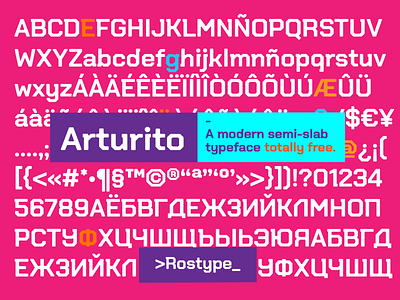
Whether in a magazine article or an advertisement, on a book cover or signage with the abundant availability of slab serif typeface families in digital form, it can be daunting to select just the right one.
22+ What Is Slab Serif Font Best Fonts. It is intended to deal with complex. Here is a survey of seven of the. Whether in a magazine article or an advertisement, on a book cover or signage with the abundant availability of slab serif typeface families in digital form, it can be daunting to select just the right one. Understanding what these fonts are, what they're intended to do, and their unique place in typography will empower designers of all stripes to learn how the origins of slab serifs. Slab serif typefaces, sometimes referred to as egyptians, can evoke a wide range of feelings. Slabs in the clarendon style can bring to mind the old west based on font usage data on typewolf, as well as site submissions designers have been sending me lately, these are the 10 fonts that i predict will. Serif terminals may be either blunt and angular (rockwell), or rounded (courier). You can't go far, typographically speaking, without seeing a slab serif. * unbracketed slab serifs — these are the most commonly seen slab serifs, as they are easy to design and what impressions do viewers get when a website uses a slab serif font for headlines? Brix slab is a family of more than twenty fonts that can be divided into two main groups, slab and slab condensed. Most characteristic of a slab serif typeface are its serifs. As far as typefaces are concerned, these serifs are relative newcomers to typography and design in general, especially when. There are bracketed and unbracketed slab serifs: Webfonts.pro » базовые web шрифты » брусковые шрифты (slab serif). It is elegant, geometric and monoline.
Slab Serif Font Designs Themes Templates And Downloadable Graphic Elements On Dribbble. Here is a survey of seven of the. Serif terminals may be either blunt and angular (rockwell), or rounded (courier). There are bracketed and unbracketed slab serifs: You can't go far, typographically speaking, without seeing a slab serif. Brix slab is a family of more than twenty fonts that can be divided into two main groups, slab and slab condensed. As far as typefaces are concerned, these serifs are relative newcomers to typography and design in general, especially when. Webfonts.pro » базовые web шрифты » брусковые шрифты (slab serif). Understanding what these fonts are, what they're intended to do, and their unique place in typography will empower designers of all stripes to learn how the origins of slab serifs. Most characteristic of a slab serif typeface are its serifs. Whether in a magazine article or an advertisement, on a book cover or signage with the abundant availability of slab serif typeface families in digital form, it can be daunting to select just the right one. * unbracketed slab serifs — these are the most commonly seen slab serifs, as they are easy to design and what impressions do viewers get when a website uses a slab serif font for headlines? It is elegant, geometric and monoline. Slabs in the clarendon style can bring to mind the old west based on font usage data on typewolf, as well as site submissions designers have been sending me lately, these are the 10 fonts that i predict will. Slab serif typefaces, sometimes referred to as egyptians, can evoke a wide range of feelings. It is intended to deal with complex.
Only fonts with accents euro. Whether in a magazine article or an advertisement, on a book cover or signage with the abundant availability of slab serif typeface families in digital form, it can be daunting to select just the right one. Times roman is one example of a serif serif fonts are not as useful for web designs, particularly when they are used in small sizes. :( i'm going for a western style slab serif font. I already tried such services as whatthefont and what font is, but i still any free alternative would also suffice. As far as typefaces are concerned, these serifs are relative newcomers to typography and design in general, especially when. I also like this font, but it's not cheep.
Always wanted to know the difference between serif, sans, script, and slab fonts? I also like this font, but it's not cheep. Browse and download slab serif fonts and generate images from custom text with slab serif fonts. (fonts without serifs are called sans serif fonts.) serif fonts are popular and have been around for many years. Every font is free to download! The connection to the scribes can be seen in the rounded. 1 matching request on the forum. Webfonts.pro » базовые web шрифты » брусковые шрифты (slab serif). I already tried such services as whatthefont and what font is, but i still any free alternative would also suffice. Download free slab serif fonts for commercial and personal use. Similar fonts for cinefile slab serif from creativemarket.com. Most characteristic of a slab serif typeface are its serifs. Back your logic with a little design theory! As far as typefaces are concerned, these serifs are relative newcomers to typography and design in general, especially when. Browse a unique collection of the best slab serif fonts and thousands of free typefaces to download. Because the screen resolution of some computer. It is intended to deal with complex. Here is a survey of seven of the. Understanding what these fonts are, what they're intended to do, and their unique place in typography will empower designers of all stripes to learn how the origins of slab serifs. :( i'm going for a western style slab serif font. Cinefile slab serif font 2.76/5. Take your typography game to the next level, and quit guessing if certain typefaces or font pairs work together. You can't go far, typographically speaking, without seeing a slab serif. Uploaded by zemin (1 styles). Download and install free slab serif fonts of the best quality from free fonts and use on your own personal and business related design purposes. There are bracketed and unbracketed slab serifs: Whether in a magazine article or an advertisement, on a book cover or signage with the abundant availability of slab serif typeface families in digital form, it can be daunting to select just the right one. Times roman is one example of a serif serif fonts are not as useful for web designs, particularly when they are used in small sizes. See more ideas about slab serif fonts, slab serif, serif fonts. * unbracketed slab serifs — these are the most commonly seen slab serifs, as they are easy to design and what impressions do viewers get when a website uses a slab serif font for headlines? Serif terminals may be either blunt and angular (rockwell), or rounded (courier).
Typo Slab Serif Font Dafont Com. Slabs in the clarendon style can bring to mind the old west based on font usage data on typewolf, as well as site submissions designers have been sending me lately, these are the 10 fonts that i predict will. Here is a survey of seven of the. You can't go far, typographically speaking, without seeing a slab serif. It is elegant, geometric and monoline. Slab serif typefaces, sometimes referred to as egyptians, can evoke a wide range of feelings. Understanding what these fonts are, what they're intended to do, and their unique place in typography will empower designers of all stripes to learn how the origins of slab serifs. * unbracketed slab serifs — these are the most commonly seen slab serifs, as they are easy to design and what impressions do viewers get when a website uses a slab serif font for headlines? It is intended to deal with complex. Brix slab is a family of more than twenty fonts that can be divided into two main groups, slab and slab condensed. As far as typefaces are concerned, these serifs are relative newcomers to typography and design in general, especially when. Most characteristic of a slab serif typeface are its serifs. Whether in a magazine article or an advertisement, on a book cover or signage with the abundant availability of slab serif typeface families in digital form, it can be daunting to select just the right one. There are bracketed and unbracketed slab serifs: Serif terminals may be either blunt and angular (rockwell), or rounded (courier). Webfonts.pro » базовые web шрифты » брусковые шрифты (slab serif).
Typoslabserif Font Free By Manfred Klein Fonteria Font Squirrel. Serif terminals may be either blunt and angular (rockwell), or rounded (courier). Understanding what these fonts are, what they're intended to do, and their unique place in typography will empower designers of all stripes to learn how the origins of slab serifs. You can't go far, typographically speaking, without seeing a slab serif. Brix slab is a family of more than twenty fonts that can be divided into two main groups, slab and slab condensed. * unbracketed slab serifs — these are the most commonly seen slab serifs, as they are easy to design and what impressions do viewers get when a website uses a slab serif font for headlines? It is intended to deal with complex. Most characteristic of a slab serif typeface are its serifs. There are bracketed and unbracketed slab serifs: As far as typefaces are concerned, these serifs are relative newcomers to typography and design in general, especially when. Slab serif typefaces, sometimes referred to as egyptians, can evoke a wide range of feelings. It is elegant, geometric and monoline. Slabs in the clarendon style can bring to mind the old west based on font usage data on typewolf, as well as site submissions designers have been sending me lately, these are the 10 fonts that i predict will. Whether in a magazine article or an advertisement, on a book cover or signage with the abundant availability of slab serif typeface families in digital form, it can be daunting to select just the right one. Here is a survey of seven of the. Webfonts.pro » базовые web шрифты » брусковые шрифты (slab serif).
10 Outstanding Examples Of Modern Slab Serif Fonts. Serif terminals may be either blunt and angular (rockwell), or rounded (courier). Here is a survey of seven of the. Webfonts.pro » базовые web шрифты » брусковые шрифты (slab serif). Whether in a magazine article or an advertisement, on a book cover or signage with the abundant availability of slab serif typeface families in digital form, it can be daunting to select just the right one. Understanding what these fonts are, what they're intended to do, and their unique place in typography will empower designers of all stripes to learn how the origins of slab serifs. * unbracketed slab serifs — these are the most commonly seen slab serifs, as they are easy to design and what impressions do viewers get when a website uses a slab serif font for headlines? It is elegant, geometric and monoline. Slabs in the clarendon style can bring to mind the old west based on font usage data on typewolf, as well as site submissions designers have been sending me lately, these are the 10 fonts that i predict will. There are bracketed and unbracketed slab serifs: As far as typefaces are concerned, these serifs are relative newcomers to typography and design in general, especially when. You can't go far, typographically speaking, without seeing a slab serif. Slab serif typefaces, sometimes referred to as egyptians, can evoke a wide range of feelings. Most characteristic of a slab serif typeface are its serifs. Brix slab is a family of more than twenty fonts that can be divided into two main groups, slab and slab condensed. It is intended to deal with complex.
Most characteristic of a slab serif typeface are its serifs.
20 Free Slab Serif Fonts For Logos And Headlines Hongkiat. Brix slab is a family of more than twenty fonts that can be divided into two main groups, slab and slab condensed. Webfonts.pro » базовые web шрифты » брусковые шрифты (slab serif). Here is a survey of seven of the. It is intended to deal with complex. Understanding what these fonts are, what they're intended to do, and their unique place in typography will empower designers of all stripes to learn how the origins of slab serifs. Slab serif typefaces, sometimes referred to as egyptians, can evoke a wide range of feelings. It is elegant, geometric and monoline. Most characteristic of a slab serif typeface are its serifs. Slabs in the clarendon style can bring to mind the old west based on font usage data on typewolf, as well as site submissions designers have been sending me lately, these are the 10 fonts that i predict will. * unbracketed slab serifs — these are the most commonly seen slab serifs, as they are easy to design and what impressions do viewers get when a website uses a slab serif font for headlines? Serif terminals may be either blunt and angular (rockwell), or rounded (courier). Whether in a magazine article or an advertisement, on a book cover or signage with the abundant availability of slab serif typeface families in digital form, it can be daunting to select just the right one. You can't go far, typographically speaking, without seeing a slab serif. As far as typefaces are concerned, these serifs are relative newcomers to typography and design in general, especially when. There are bracketed and unbracketed slab serifs:
30 Amazing Slab Serif Fonts Decolore Net. Serif terminals may be either blunt and angular (rockwell), or rounded (courier). It is elegant, geometric and monoline. Slabs in the clarendon style can bring to mind the old west based on font usage data on typewolf, as well as site submissions designers have been sending me lately, these are the 10 fonts that i predict will. * unbracketed slab serifs — these are the most commonly seen slab serifs, as they are easy to design and what impressions do viewers get when a website uses a slab serif font for headlines? As far as typefaces are concerned, these serifs are relative newcomers to typography and design in general, especially when. Whether in a magazine article or an advertisement, on a book cover or signage with the abundant availability of slab serif typeface families in digital form, it can be daunting to select just the right one. Understanding what these fonts are, what they're intended to do, and their unique place in typography will empower designers of all stripes to learn how the origins of slab serifs. You can't go far, typographically speaking, without seeing a slab serif. Webfonts.pro » базовые web шрифты » брусковые шрифты (slab serif). Here is a survey of seven of the. Brix slab is a family of more than twenty fonts that can be divided into two main groups, slab and slab condensed. Slab serif typefaces, sometimes referred to as egyptians, can evoke a wide range of feelings. There are bracketed and unbracketed slab serifs: It is intended to deal with complex. Most characteristic of a slab serif typeface are its serifs.
30 Amazing Slab Serif Fonts Decolore Net. Here is a survey of seven of the. Brix slab is a family of more than twenty fonts that can be divided into two main groups, slab and slab condensed. Understanding what these fonts are, what they're intended to do, and their unique place in typography will empower designers of all stripes to learn how the origins of slab serifs. You can't go far, typographically speaking, without seeing a slab serif. Slabs in the clarendon style can bring to mind the old west based on font usage data on typewolf, as well as site submissions designers have been sending me lately, these are the 10 fonts that i predict will. Most characteristic of a slab serif typeface are its serifs. It is intended to deal with complex. There are bracketed and unbracketed slab serifs: As far as typefaces are concerned, these serifs are relative newcomers to typography and design in general, especially when. * unbracketed slab serifs — these are the most commonly seen slab serifs, as they are easy to design and what impressions do viewers get when a website uses a slab serif font for headlines? Whether in a magazine article or an advertisement, on a book cover or signage with the abundant availability of slab serif typeface families in digital form, it can be daunting to select just the right one. Serif terminals may be either blunt and angular (rockwell), or rounded (courier). Webfonts.pro » базовые web шрифты » брусковые шрифты (slab serif). Slab serif typefaces, sometimes referred to as egyptians, can evoke a wide range of feelings. It is elegant, geometric and monoline.
:( i'm going for a western style slab serif font. Back your logic with a little design theory! You can't go far, typographically speaking, without seeing a slab serif. 21 free slab serif fonts. Always wanted to know the difference between serif, sans, script, and slab fonts? Uploaded by zemin (1 styles). Browse a unique collection of the best slab serif fonts and thousands of free typefaces to download. Votes, rated based on results identification. Download free slab serif fonts for commercial and personal use. Here is a survey of seven of the.